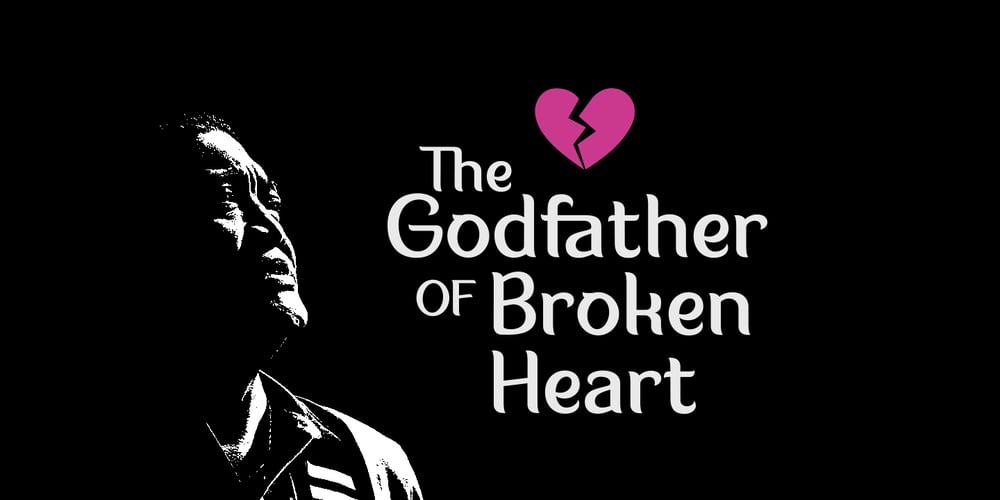
Fonia Font Family was designed by Arwan Sutanto and published by Locomotype. Fonia contains 2 styles and family package options. Fonia is a calligraphic art deco font with feminine touch, unique and exotic. It is designed to be more simple, so it keeps the legibility in different font sizes. You will get a semi-classical typography that does not eliminate the modern concept. Opentype features allow you to mix and match to create a rich and beautiful design. With Fonia, you can create an attractive packaging design, wedding invitations, wine labels or great packaging of beauty products. That will be a really cool design.